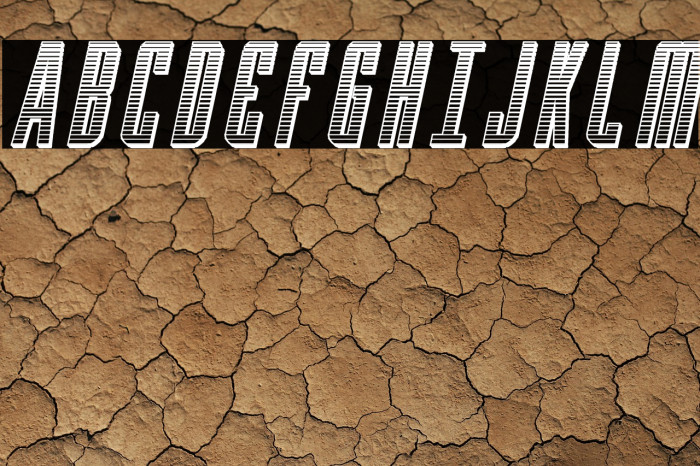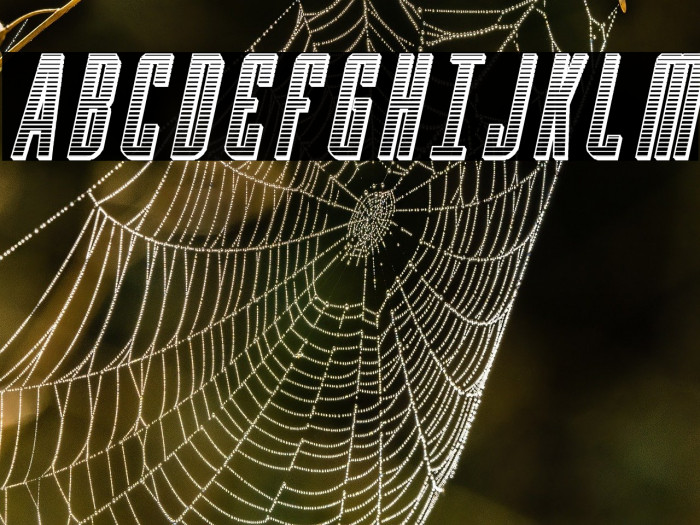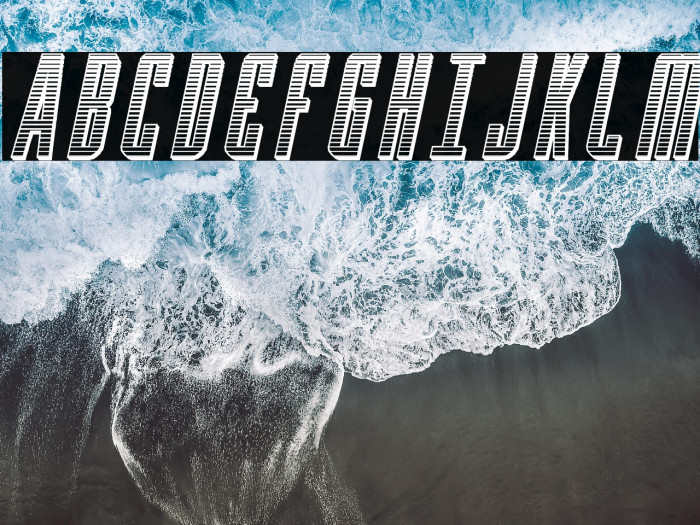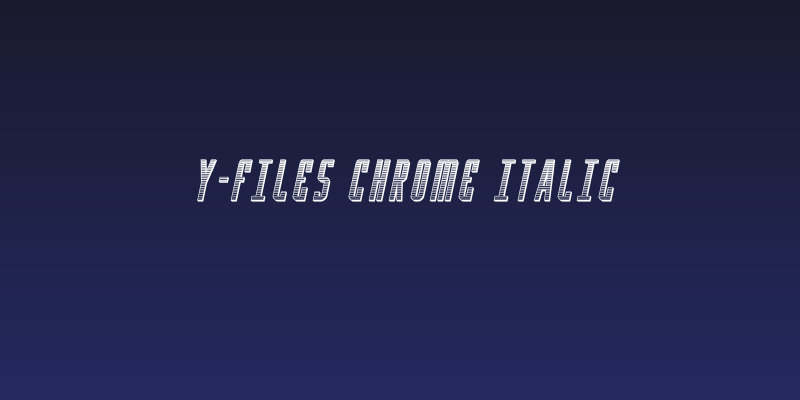
Y-Files Chrome Italic Font
Y-Files Chrome Italic Description
This font features a bold, italicized style with a distinct 3D chrome effect, giving it a futuristic and dynamic appearance. The letters are elongated and slightly condensed, with horizontal lines running through each character, enhancing the metallic look. The uppercase and lowercase letters maintain a consistent style, while the numbers and special characters are designed to match the overall aesthetic. This font is eye-catching and ideal for projects that require a modern, tech-inspired look.
| Proposed Projects | Ideal for futuristic designs, tech branding, video game titles, and sci-fi themed posters. |